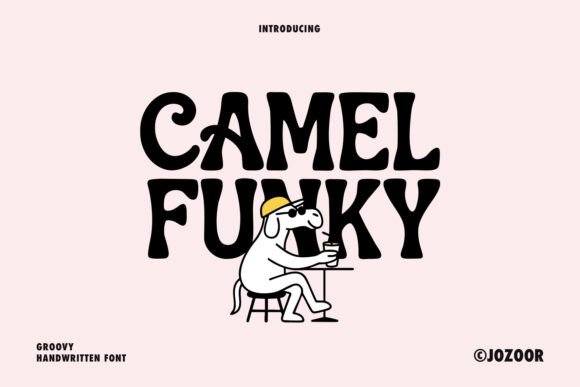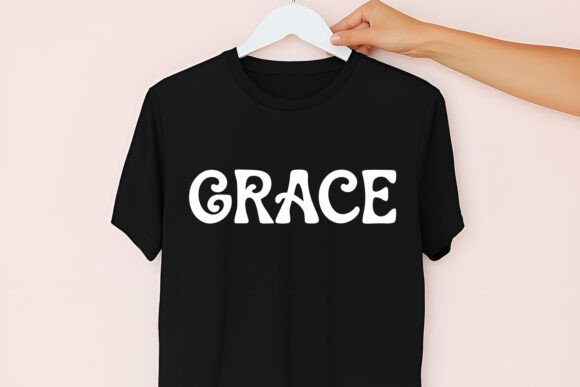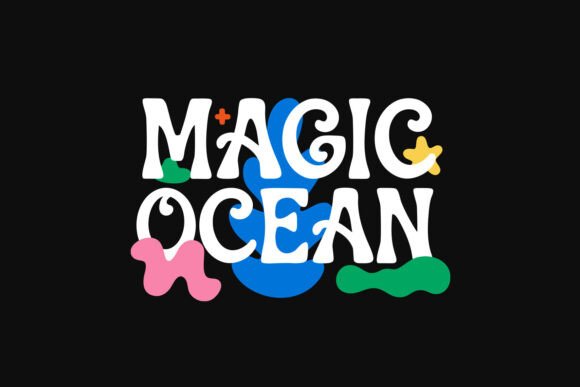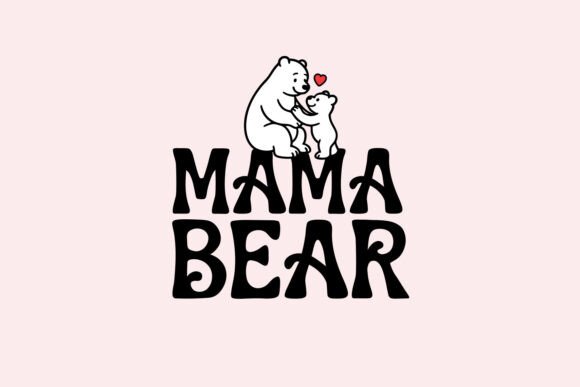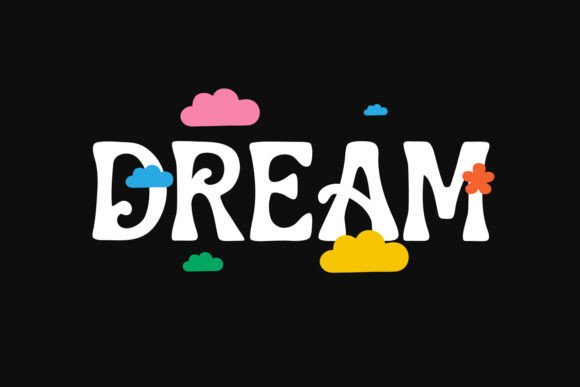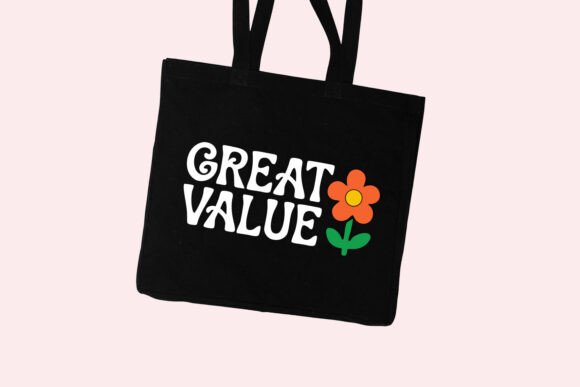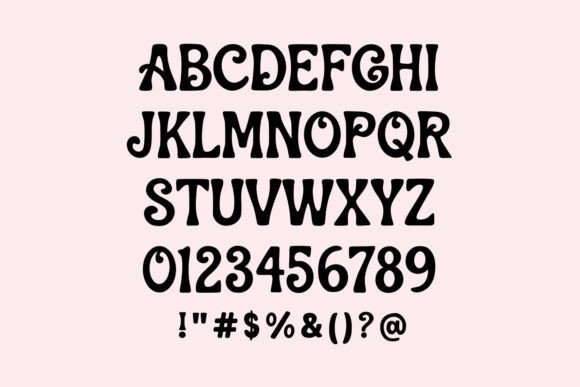
Camel Funky Font
Camel Funky is a groovy, retro, boho, and fun 70s display font. Whether you’re using it for crafts, digital design, presentations, or making greeting cards, this font has the potential to become your favorite, no matter the occasion! It is the best choice for creating eye-catching logos, branding, and quotes. Add it to your most creative ideas, and notice how it makes them come alive!